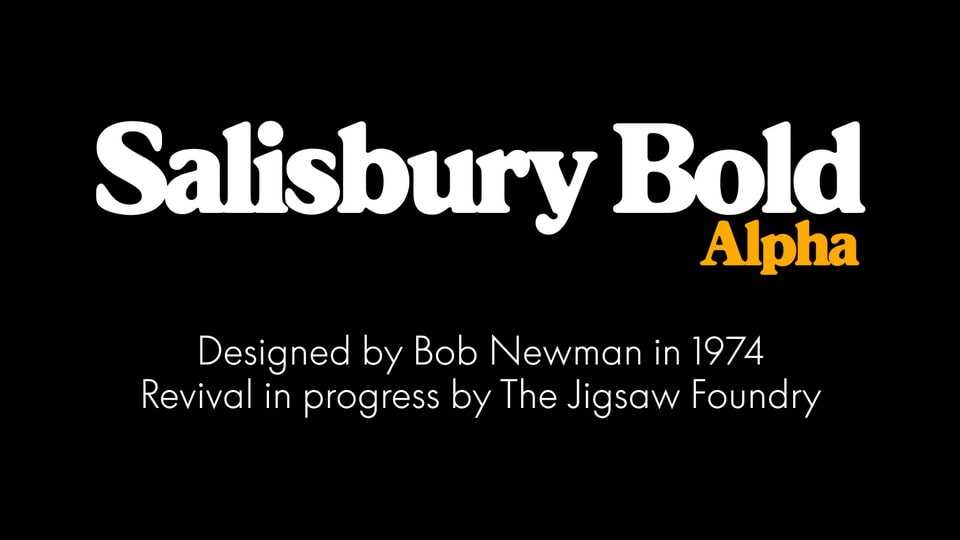
Download Salisbury Bold font, an oldstyle serif in a single bold weight, with a single story ‘g’. Seems to have been designed to fill a gap – Souvenir without the Art Nouveau flair and Windsor without the wonkiness.